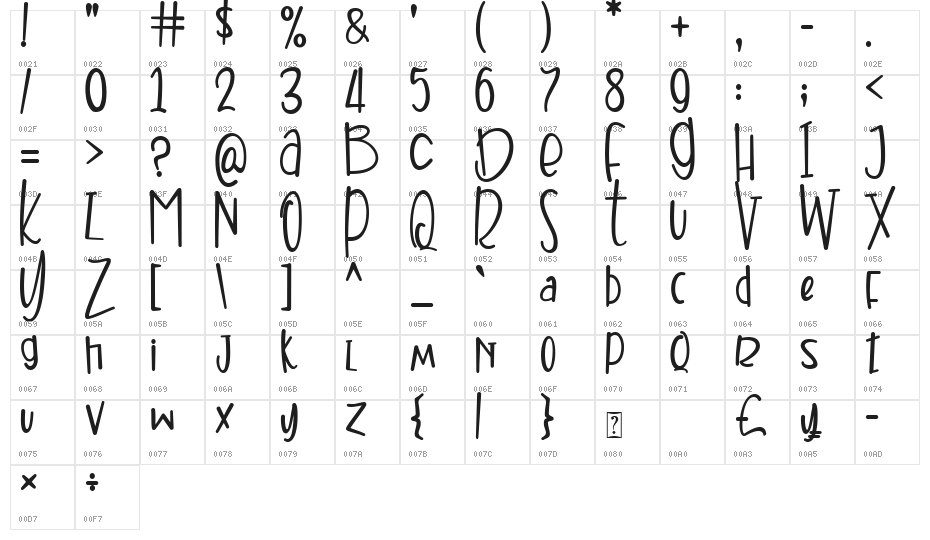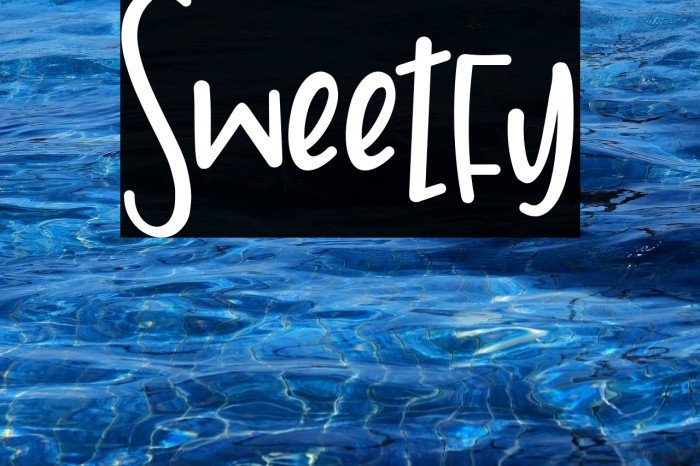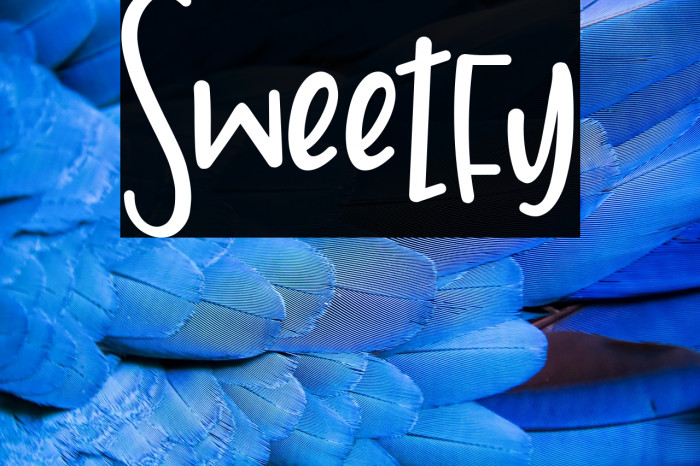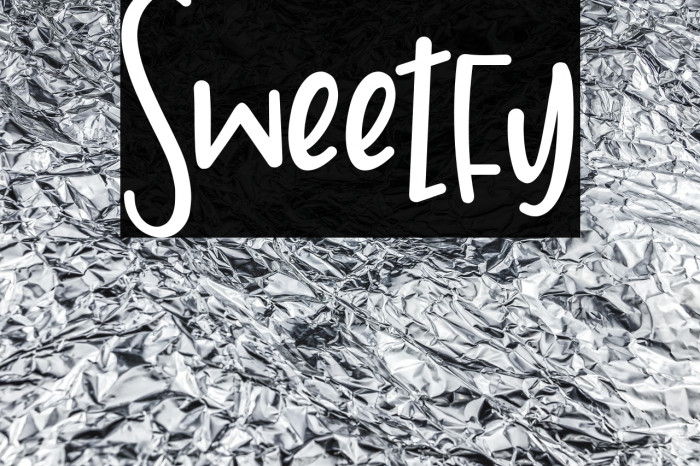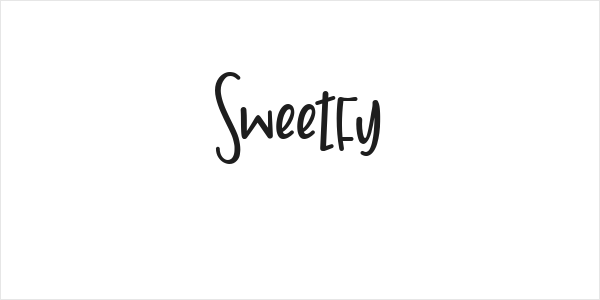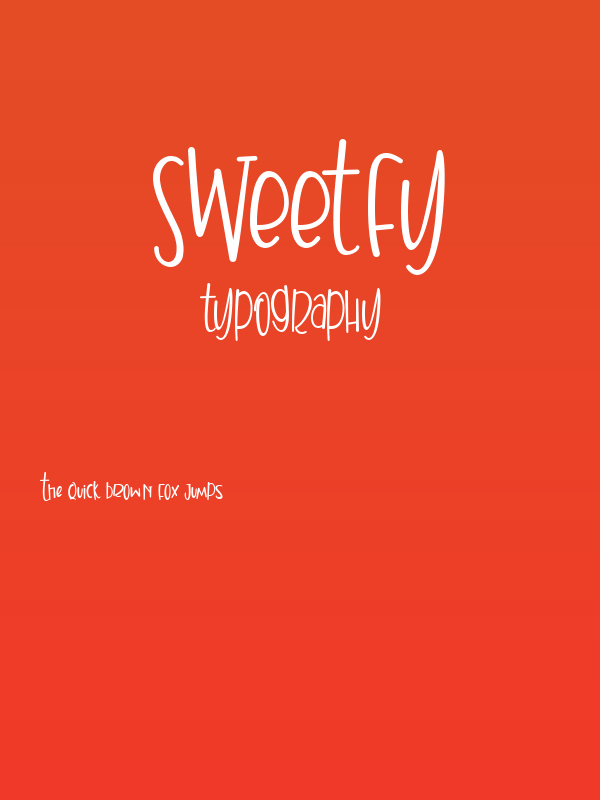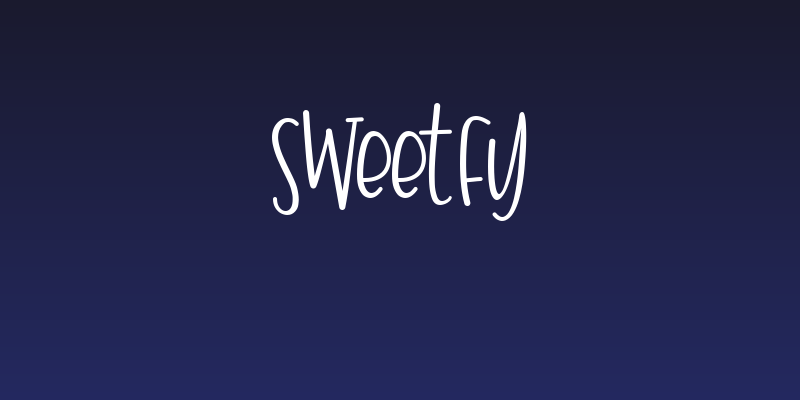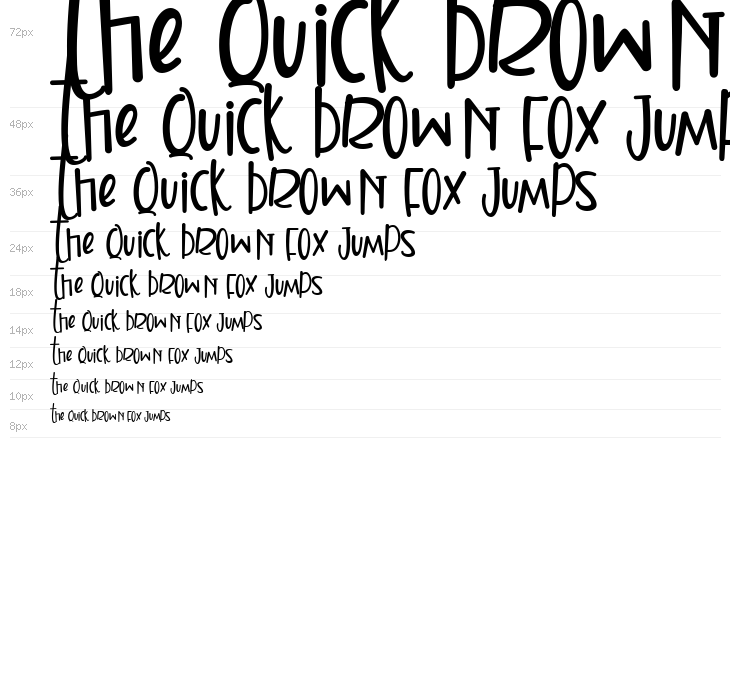
Sweetfy Font
Sweetfy Description
This playful and whimsical font features a hand-drawn aesthetic with tall, narrow characters that convey a sense of fun and creativity. The uppercase and lowercase letters are uniquely styled, with exaggerated curves and varying stroke widths that add to its charm. The numbers and special characters maintain the same lively and informal style, making it suitable for projects that require a personal touch. The font's irregularities and organic feel give it a dynamic and approachable appearance, perfect for engaging audiences in a friendly manner.